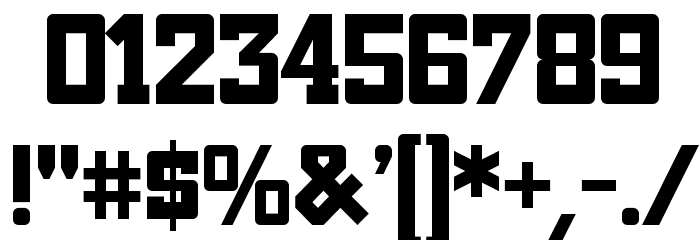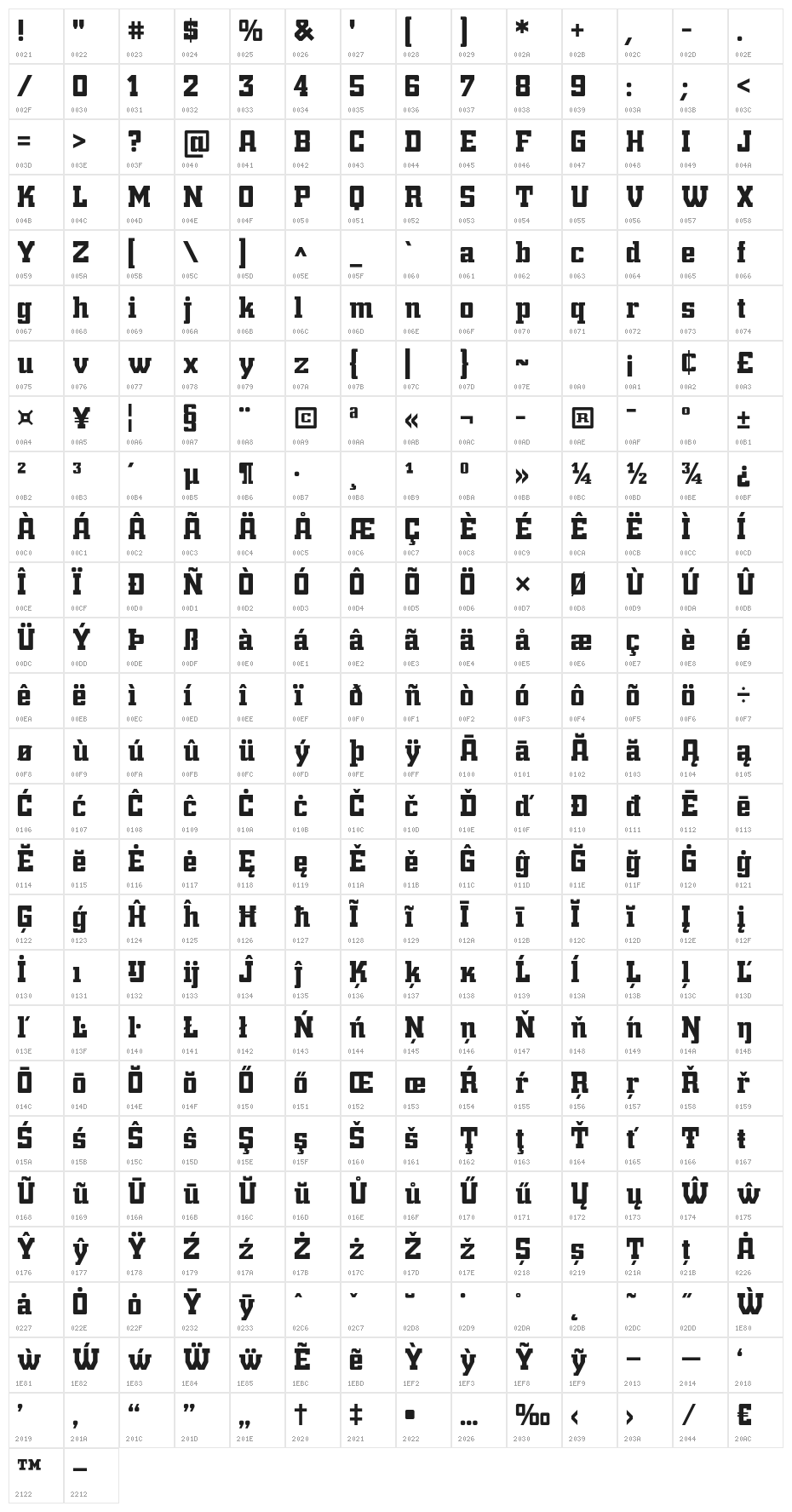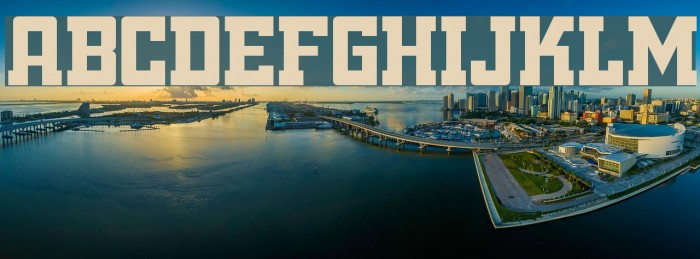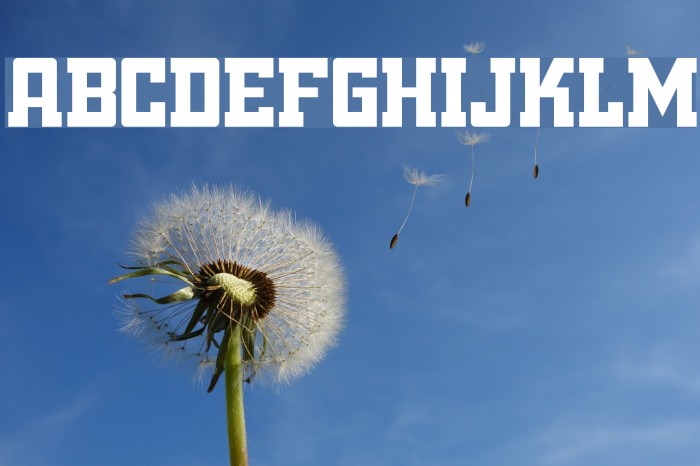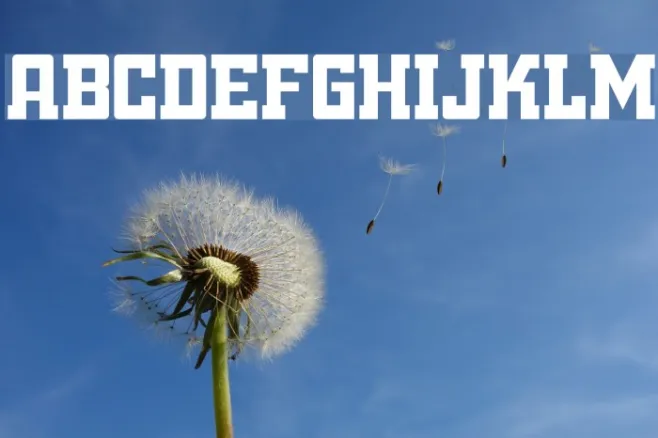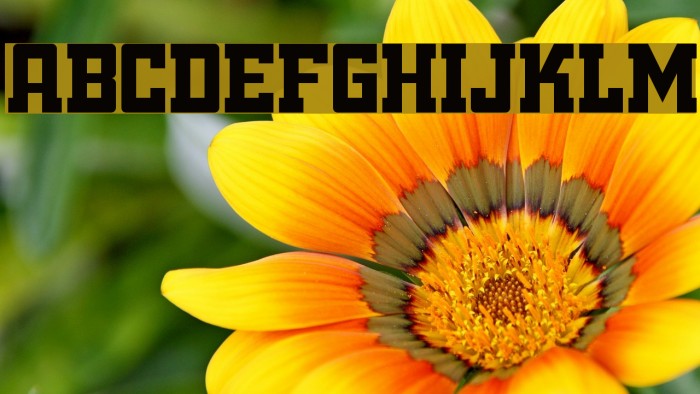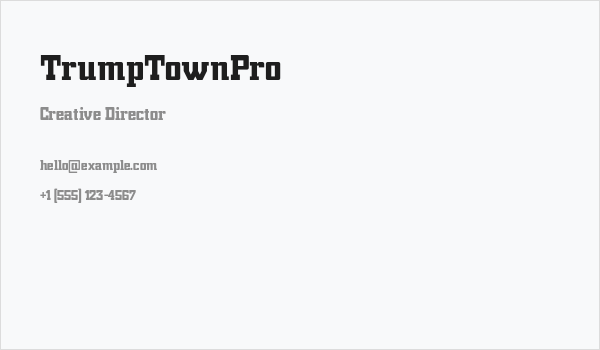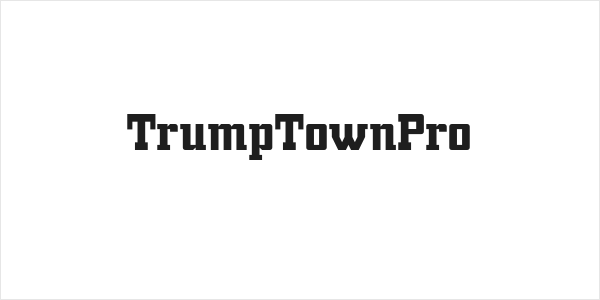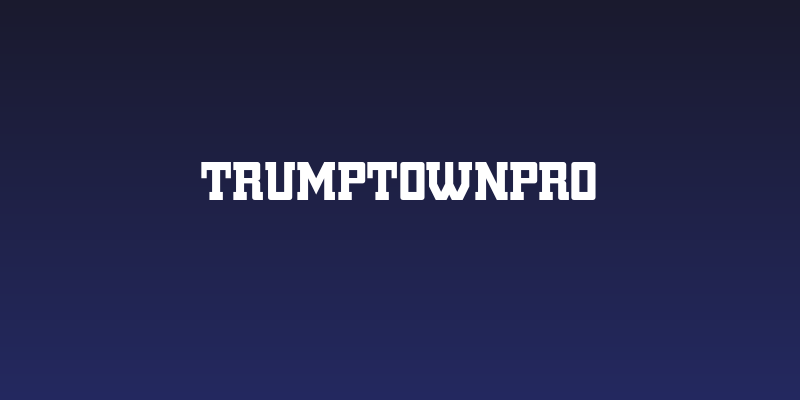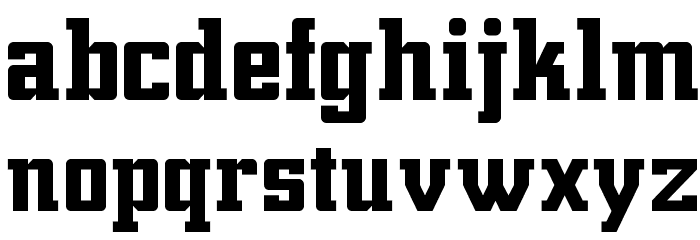
TrumpTownPro Font
TrumpTownPro Description
This font features a bold, geometric style with strong, block-like characters. The uppercase letters are uniform in height and width, creating a cohesive and structured appearance. The lowercase letters maintain the same boldness, with slightly rounded edges that soften the overall look. Numbers are equally bold and consistent, ensuring readability and impact. Special characters are designed to match the robust style of the alphanumeric characters, making them stand out effectively. The font's design is reminiscent of industrial or collegiate themes, suitable for projects requiring a strong visual presence.
| Proposed Projects | Ideal for posters, logos, sports team branding, and headlines that require a strong, impactful look. |